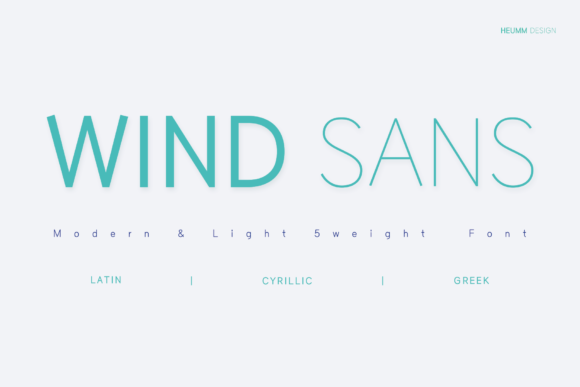
Let the Breeze of Creativity Blow
Have you ever been stuck on a design project, struggling to find the perfect font to convey your message? For designers, finding the right typeface can be a make-or-break moment. It’s the difference between a project that breathes life and one that falls flat.
Enter Hu Windsans Font, a sans serif typeface designed to capture the essence of simplicity and elegance. With its long body of characters and lightweight feel, Hu Windsans Font is perfect for any text-based project. From body copy to headings, this font is sure to bring a sense of calm and serenity to your designs.
As a designer, you know that the right font can elevate your work and make it stand out. Hu Windsans Font is a valuable addition to any design toolkit, offering a unique blend of style and functionality that’s sure to impress.
Hu Windsans Font Key Features
- Font Family: Hu Windsans is a sans-serif font family designed for digital use.
- Font Sizes: Offers a wide range of font sizes, from 8pt to 72pt, suitable for various digital applications.
- Resolution: Designed for high-resolution displays, suitable for use at 72 dpi, 144 dpi, and 300 dpi.
- Unique Characteristics: Features a modern and clean design, with optimized letter spacing and kerning for improved readability.
Hu Windsans Font Review
I recently had the chance to work with the Hu Windsans font, and I must say it’s been an interesting experience. Let’s dive into what I liked and didn’t like about this font.
- Legibility: Hu Windsans is highly legible, making it perfect for body text and long passages of content.
- OpenType Features: It supports a wide range of OpenType features, including ligatures, swashes, and contextual alternates.
- Neutral Personality: Hu Windsans has a neutral personality that makes it suitable for various design projects and audiences.
- Uppercase Letters: The uppercase letters can appear a bit boxy and lacking in personality, which may not be ideal for headings or titles.
- Lack of Expressiveness: Hu Windsans can feel a bit too neutral, which may not be suitable for projects that require a stronger emotional connection.
- Not Ideal for Display Text: While it works well for body text, Hu Windsans may not be the best choice for display text or titles due to its lack of expressiveness.
Overall, I think Hu Windsans is a solid choice for body text and long passages of content, but it may not be the best fit for projects that require a stronger emotional connection or more expressive typography.
Hu Windsans Font is a versatile font that can be used for a variety of purposes. Some common use cases include:
- Body text in brochures and flyers
- Headlines and titles in marketing materials
- Labels and captions in presentations
Some tips for getting the most out of Hu Windsans Font include:
- Using it in conjunction with bold or italic text to create visual interest
- Experimenting with different font sizes and colors to create a unique look
Alternatives to Hu Windsans Font
Noto Sans
Noto Sans is a free and open-source sans-serif font designed by Google. It’s a great alternative to Hu Windsans Font for digital products and applications where readability is crucial. Noto Sans is highly legible in various font sizes and can be used for body text, headings, and titles. Compared to Hu Windsans Font, Noto Sans has a more rounded and friendly feel, making it suitable for modern and approachable designs.
Inter is a modern sans-serif font designed by Rasmus Andersson. It’s a highly versatile font that works well for various design projects, from digital products to print materials. Inter is more geometric and clean compared to Hu Windsans Font, making it suitable for minimalist and sophisticated designs. It’s an excellent choice for titles, headings, and body text where a clean and modern look is required.
Lato is a sans-serif font designed by Łukasz Dziedzic. It’s a highly legible font that works well for body text and titles. Lato has a friendly and approachable feel, making it suitable for various design projects, from digital products to print materials. Compared to Hu Windsans Font, Lato has a more rounded and elegant feel, making it suitable for designs that require a touch of sophistication.